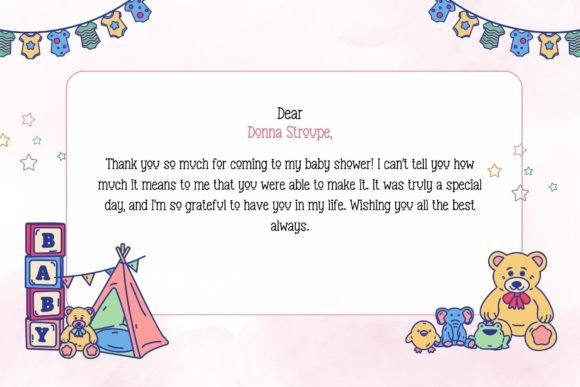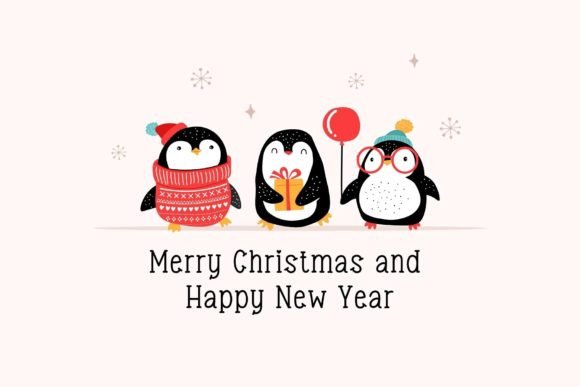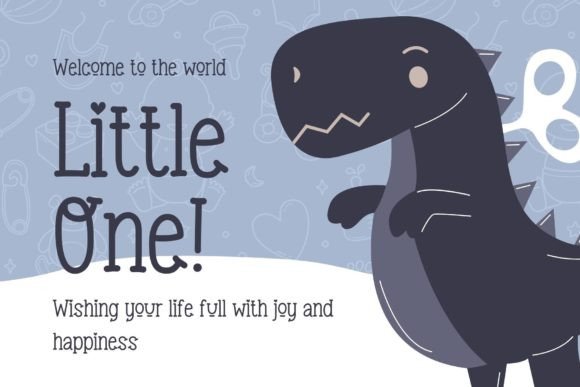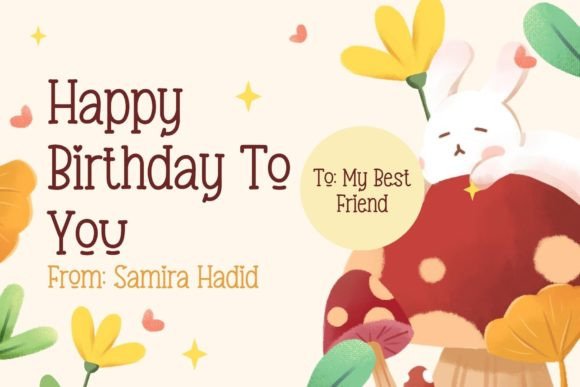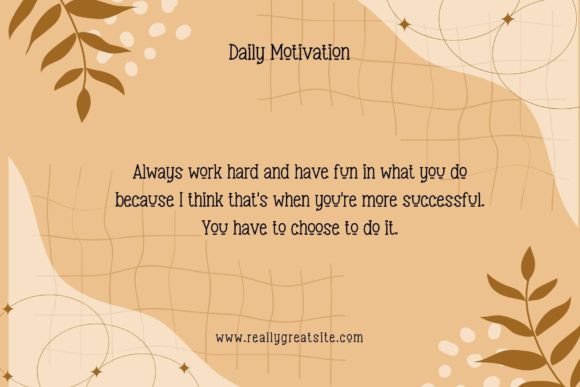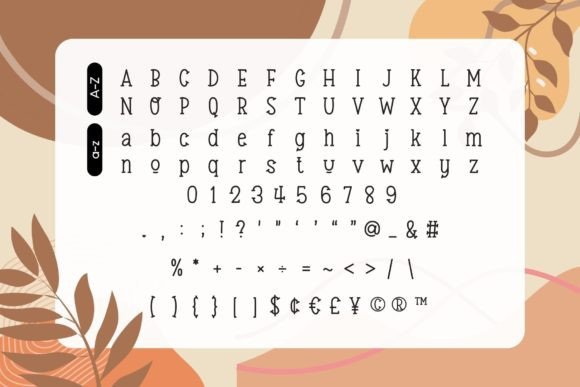
The Delightful World of Fox Playing Font
I still remember the time I was working on a project for a client who wanted a font that was both playful and elegant. I scoured the internet, tried out countless fonts, but nothing seemed to fit the bill. That was until I stumbled upon Fox Playing Font. It was love at first sight! ✨ This charming handwritten serif typeface has been a game-changer for my designs, and I’m excited to share its awesomeness with you.
A Personal Review of Fox Playing Font
- ✨ Cuteness overload: Fox Playing Font exudes a sense of playfulness and simplicity that’s hard to resist.
- ✅ Easy to read: The clean lines and clear design make it perfect for a wide range of creative projects.
- 💕 Versatile: From inspirational quotes to captivating headings, engaging blogs, striking logos, or inviting invitations, this font adds a delightful touch to any project.
While Fox Playing Font is an amazing font, it’s not perfect. Here are a few things to keep in mind:
- ⚠️ Limited use in formal projects: Due to its playful nature, Fox Playing Font might not be the best choice for formal or professional projects.
- 🤔 Glyph limitations: While the font has a range of glyphs, it might not have every special character you need.
The Story Behind Fox Playing Font
While the true story behind Fox Playing Font remains a mystery, it’s easy to imagine that it was created by a designer who wanted to capture the whimsy and playfulness of a child’s imagination. Perhaps the designer was inspired by the curious nature of foxes, or the joy of playing with typography. Whatever the inspiration, Fox Playing Font is a delightful addition to the world of typography.
Q: Does Fox Playing Font support OpenType features?
A: Yes, Fox Playing Font supports OpenType features, including glyphs and stylistic alternates.